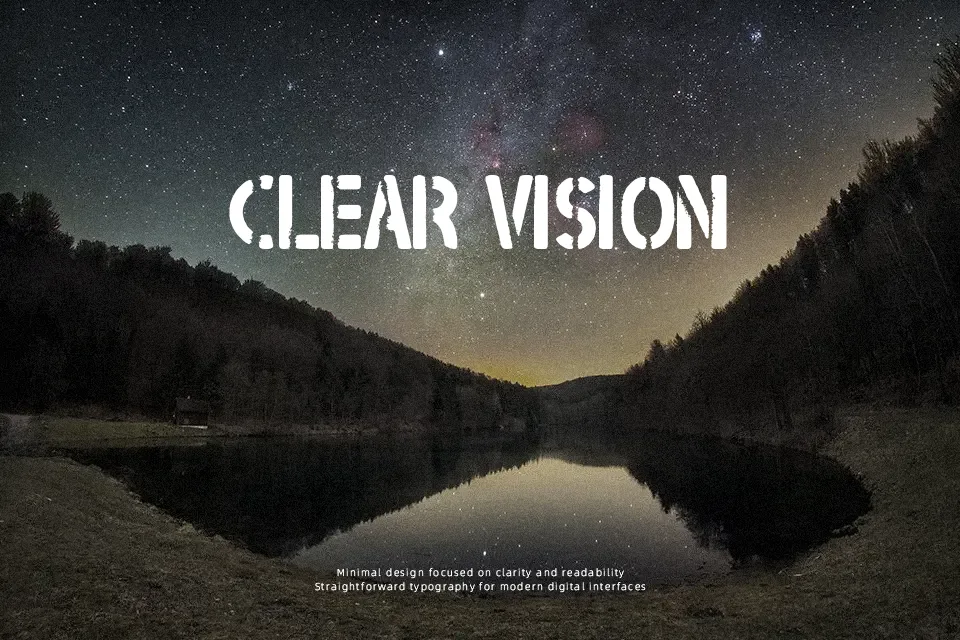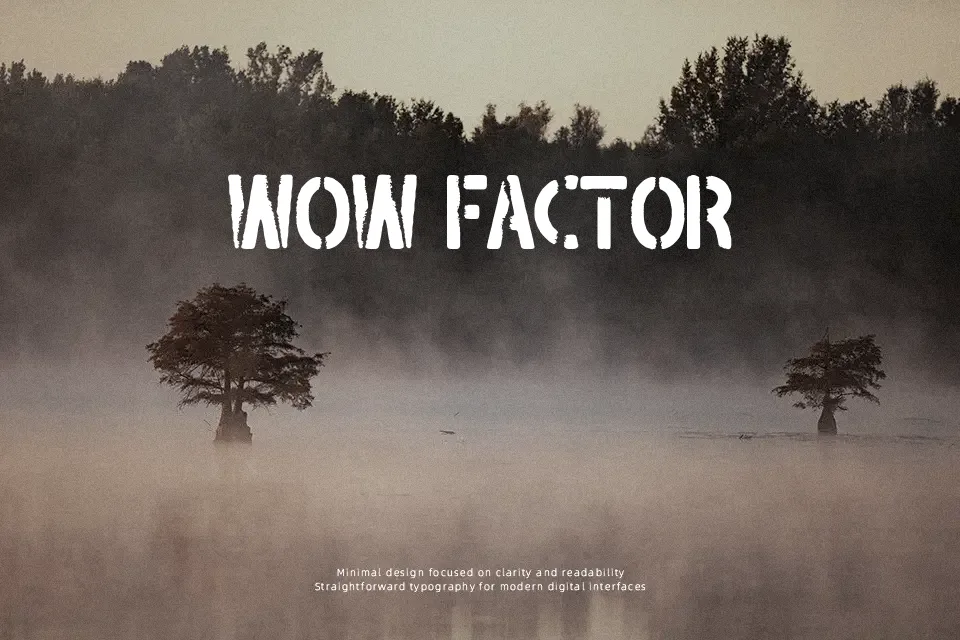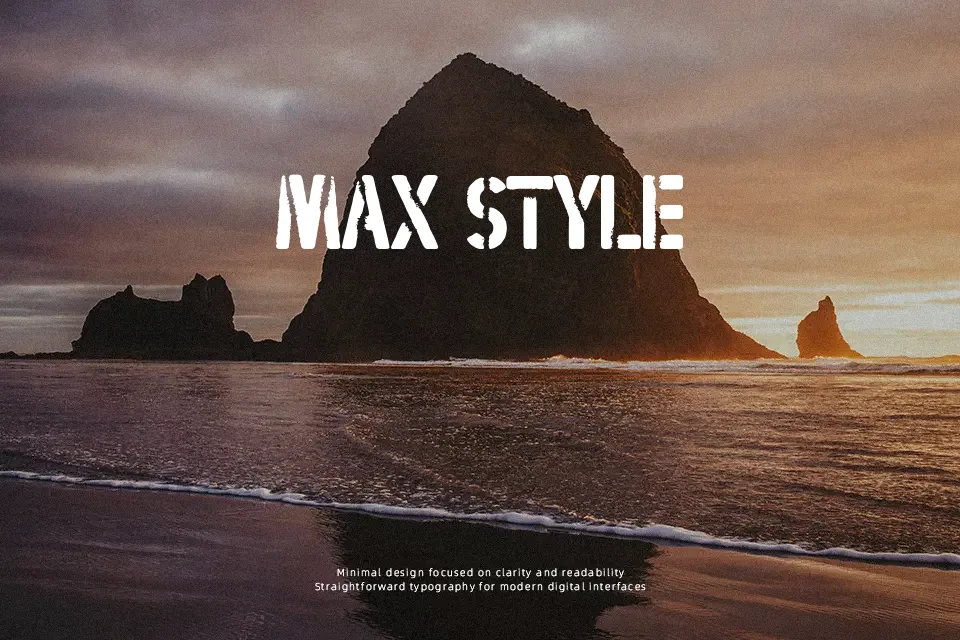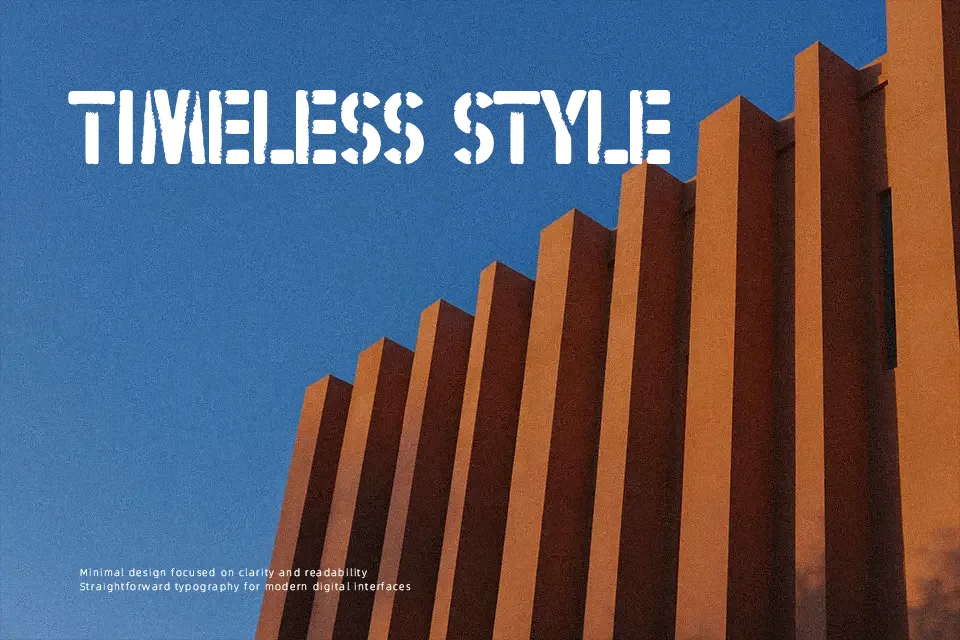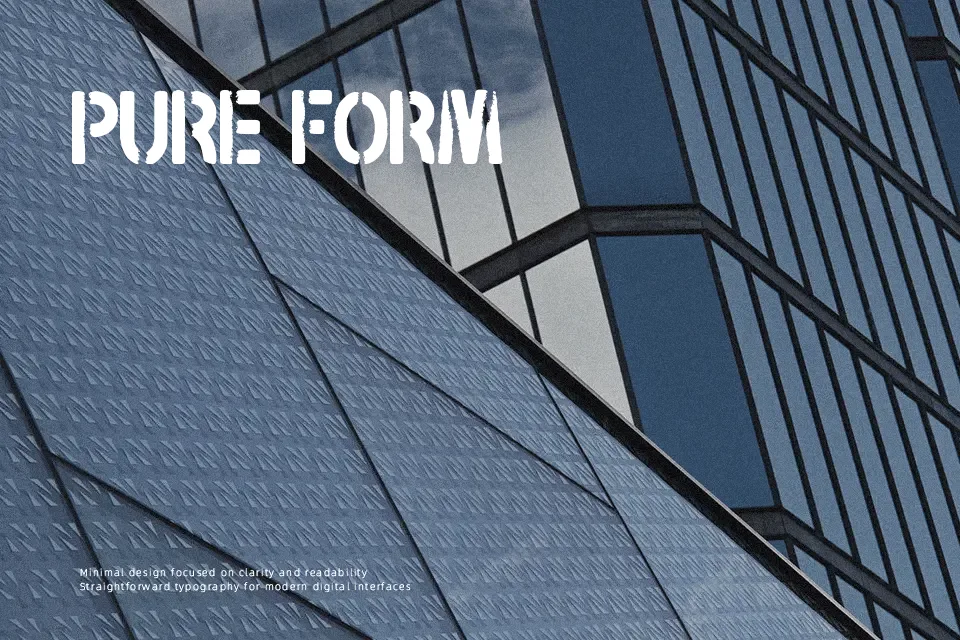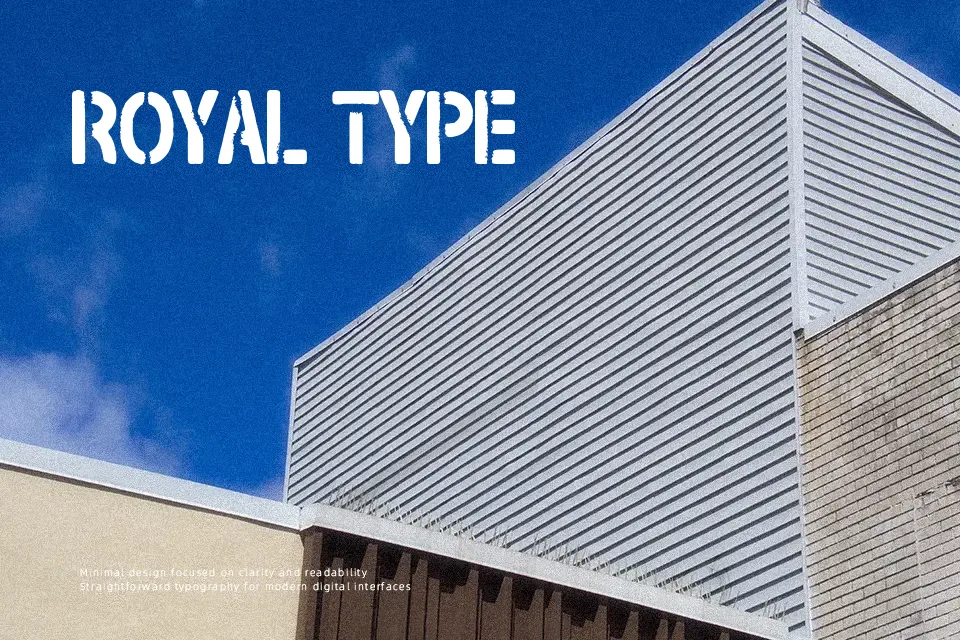
Blackshirts Font
Woodcutter’s Blackshirts delivers a heavy, utilitarian stencil design characterized by rigid geometry and deliberate bridge placements across its letterforms. The characters feel substantial, projecting a masculine and industrial tone that commands the space it occupies. This typeface performs admirably when applied to tactical gear packaging, extreme sports graphics, or large warning labels where a no-nonsense aesthetic is required. However, its aggressive posture and chunky line weight make it entirely unsuitable for extended reading or delicate luxury layouts. Unlike more refined stencil options, Blackshirts leans heavily into a raw, unpolished vibe, making it a reliable tool for high-impact headlines rather than subtle supporting text.
Industrial equipment branding
Tactical or military event posters
Extreme sports apparel graphics
Lengthy editorial paragraphs
Elegant wedding stationery
Minimalist cosmetic packaging
Perfect for advertising, branding, and headline, with a bold and display style.